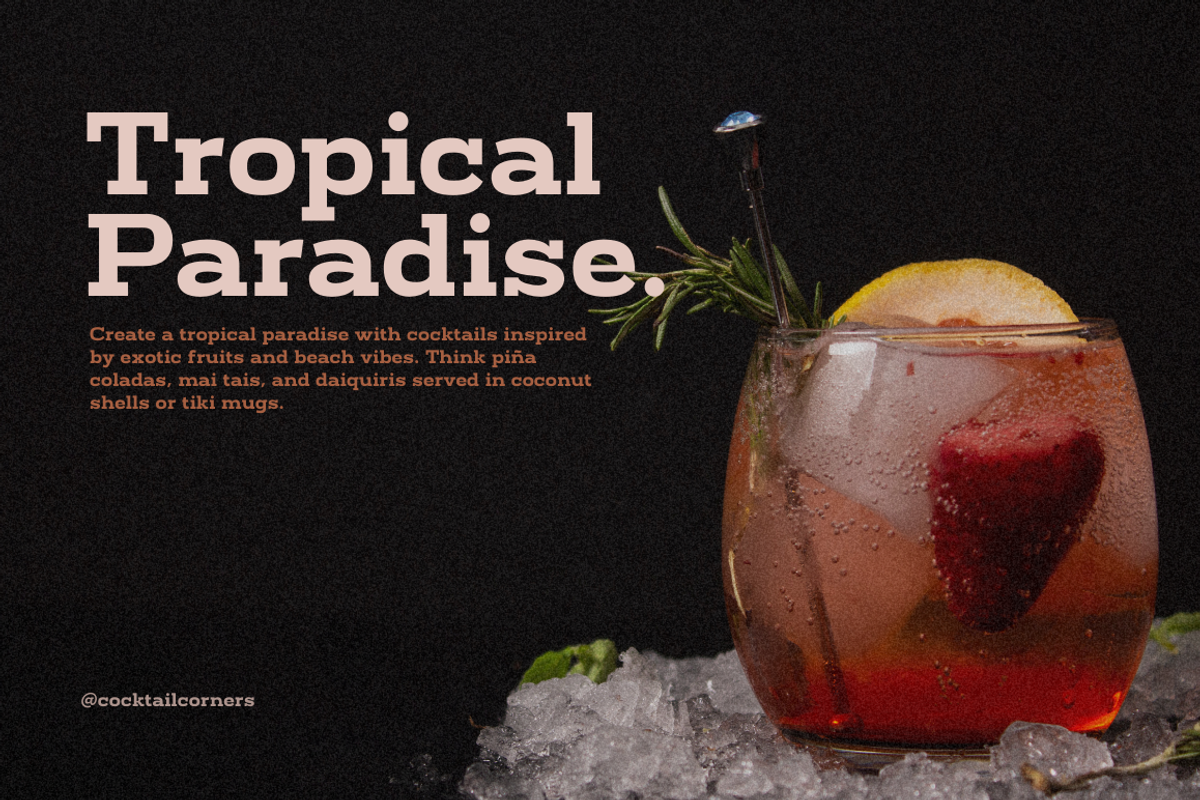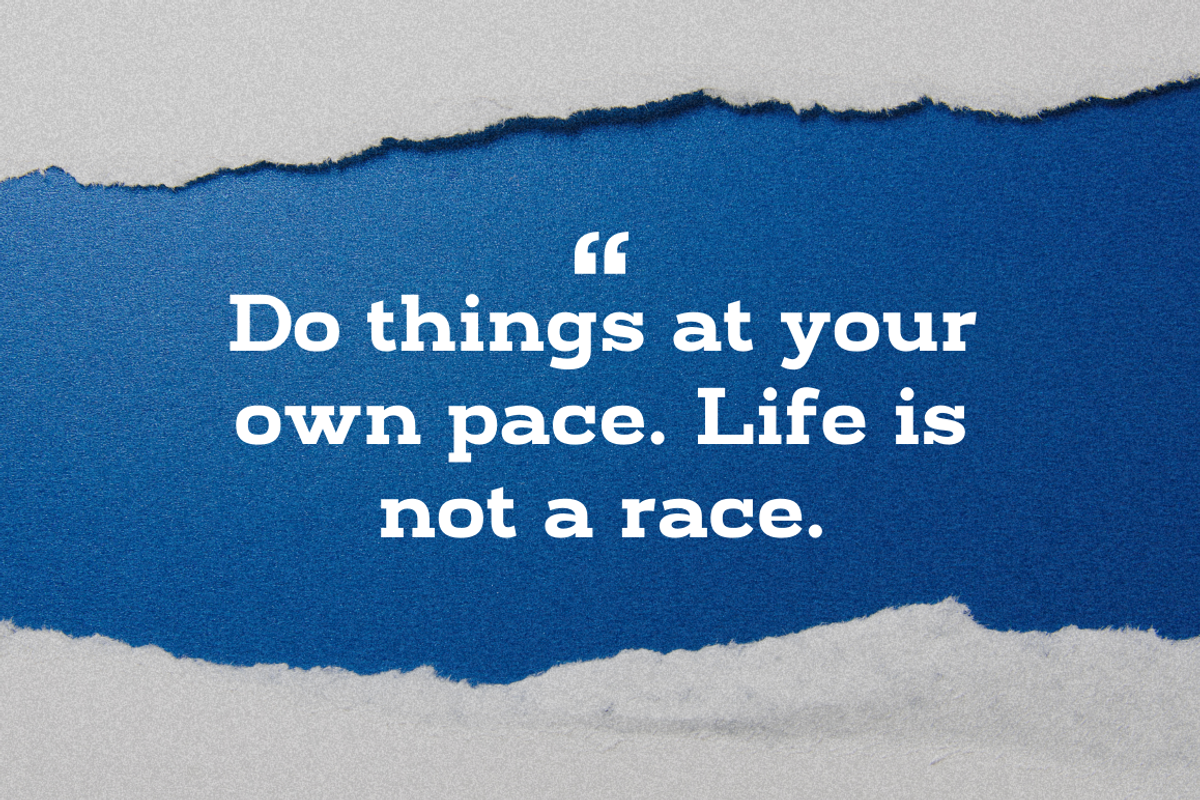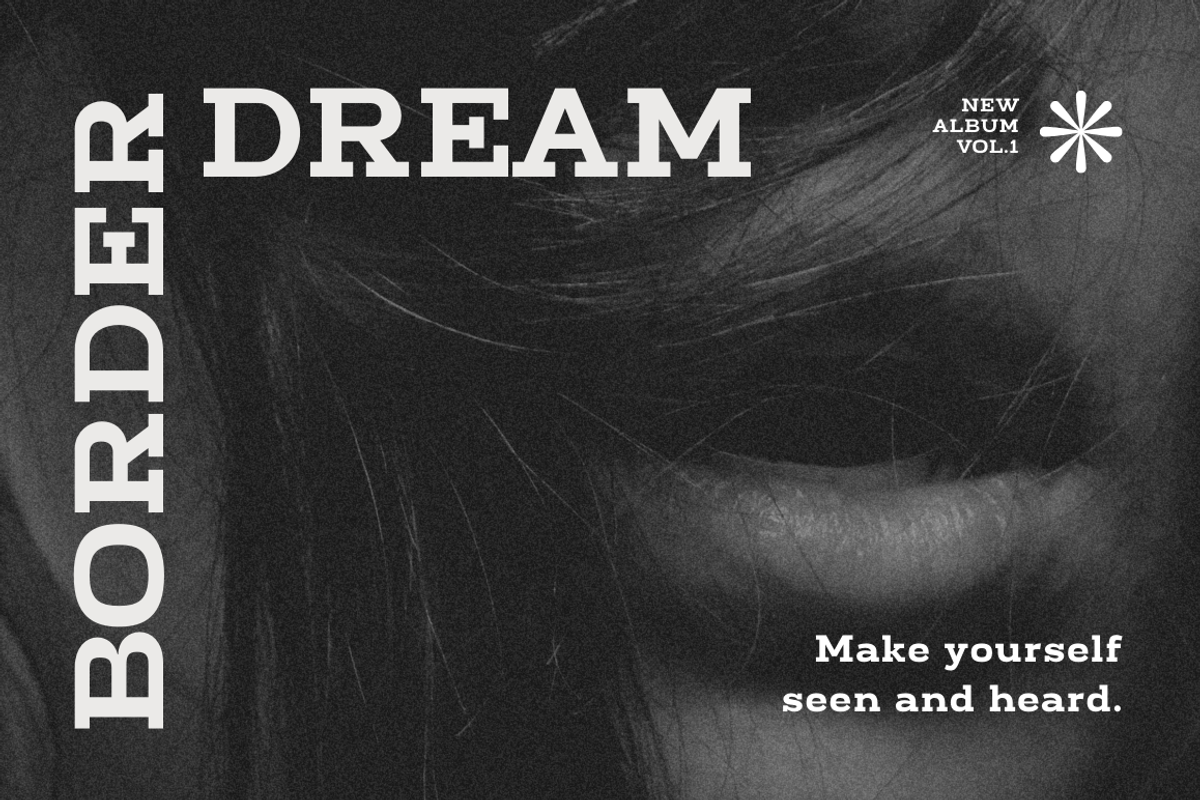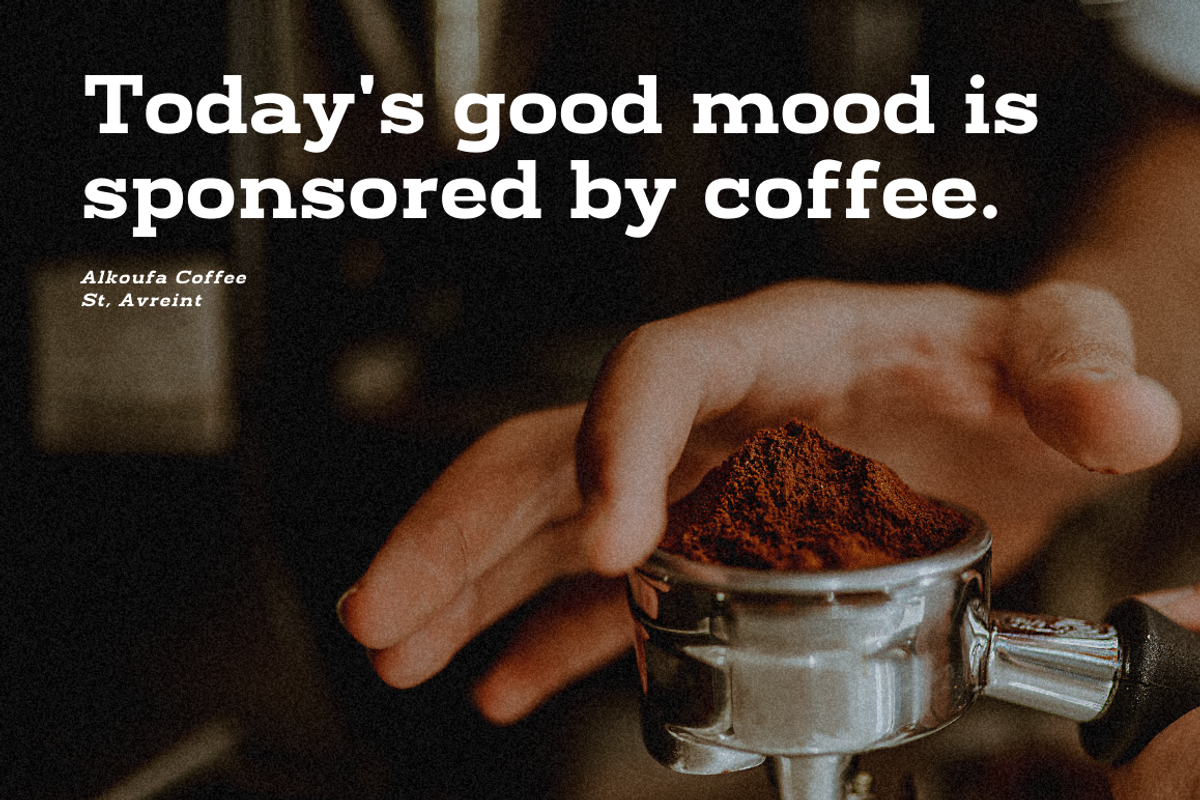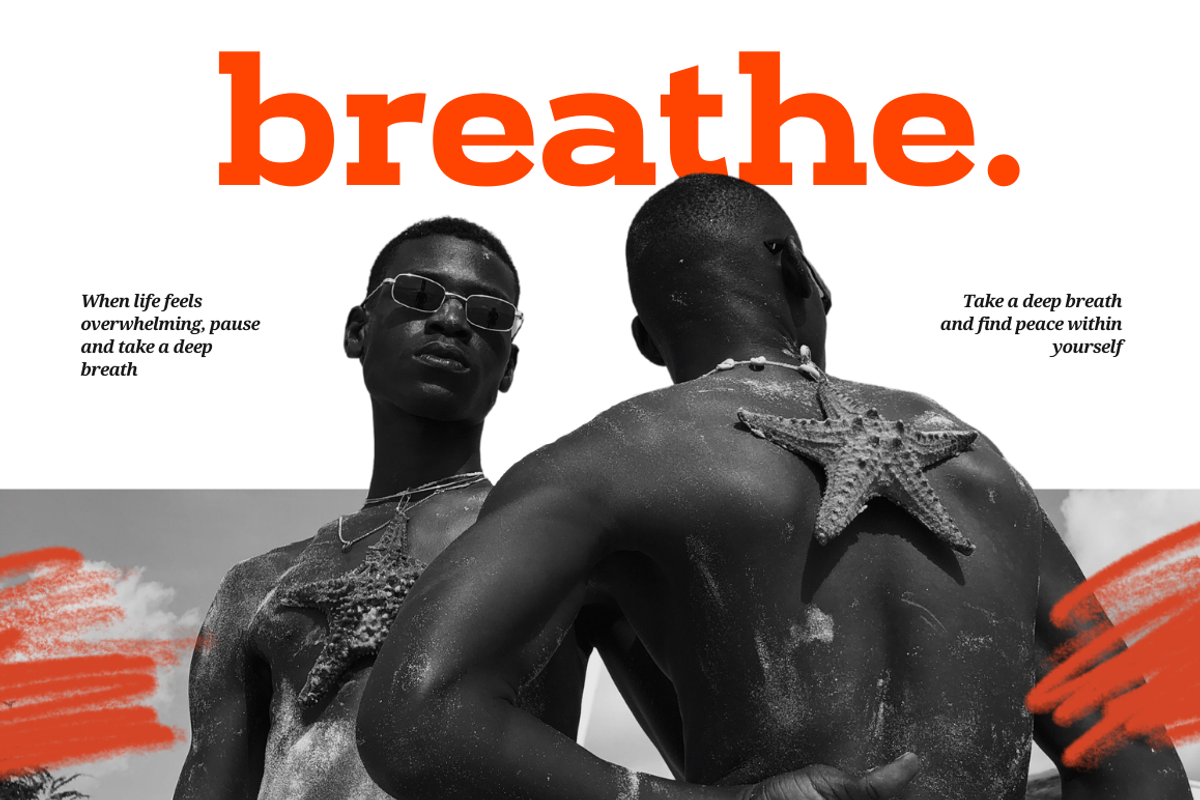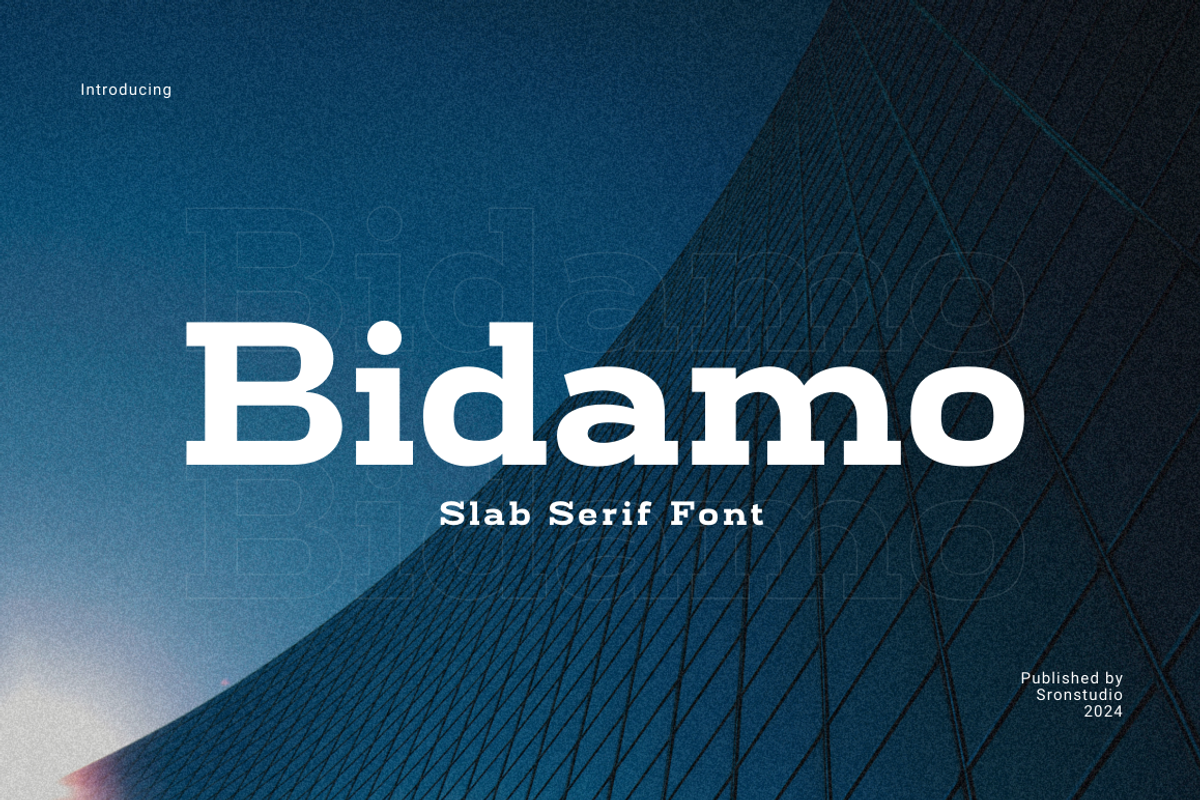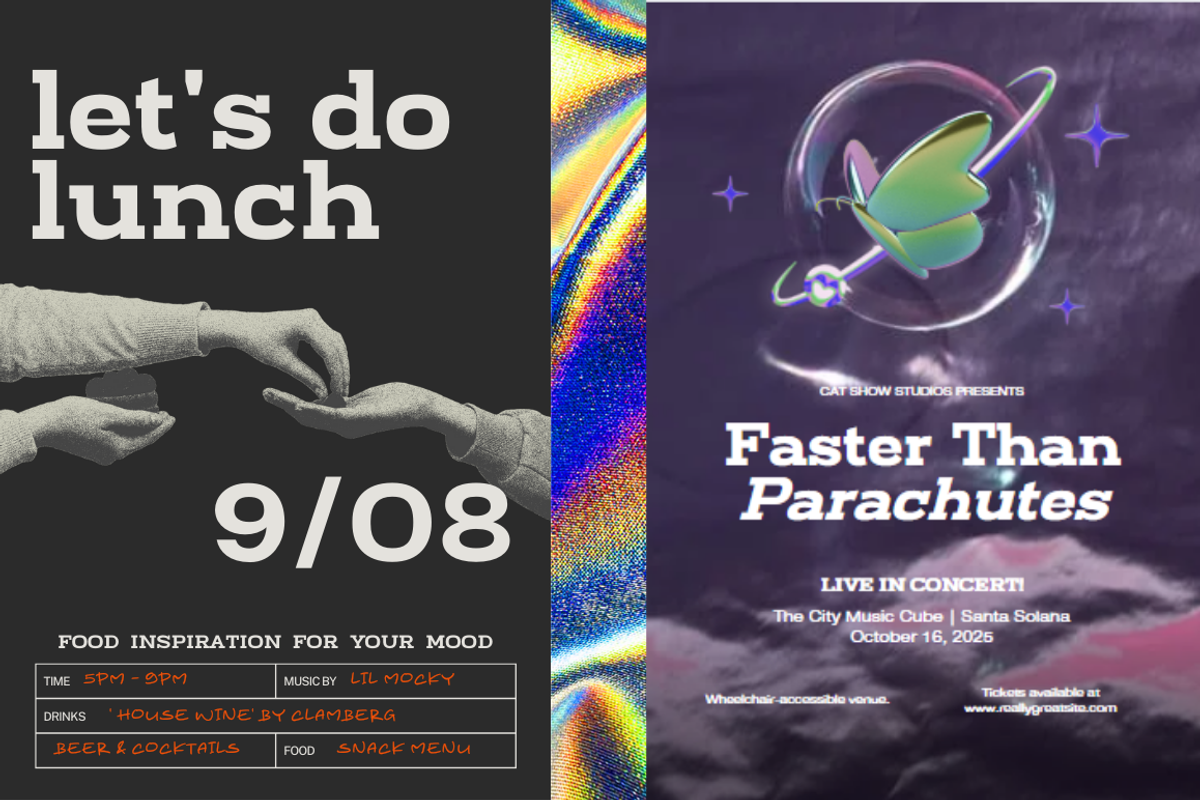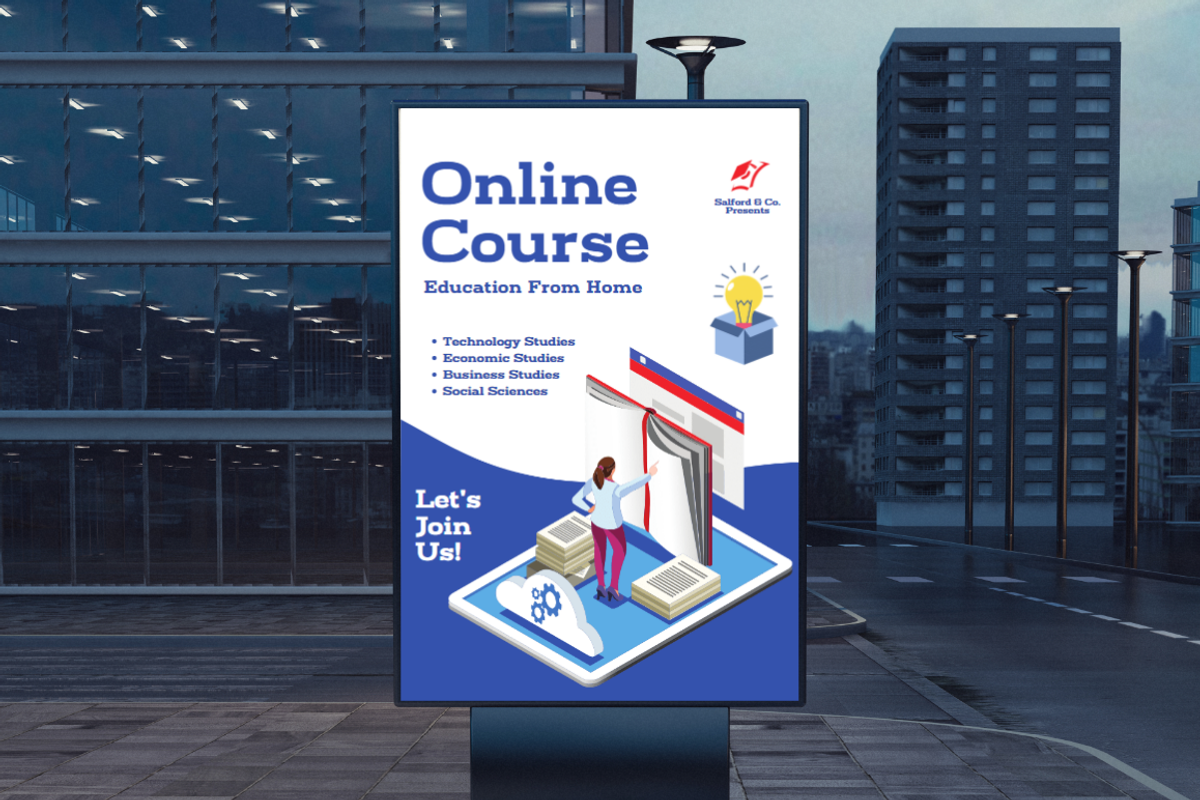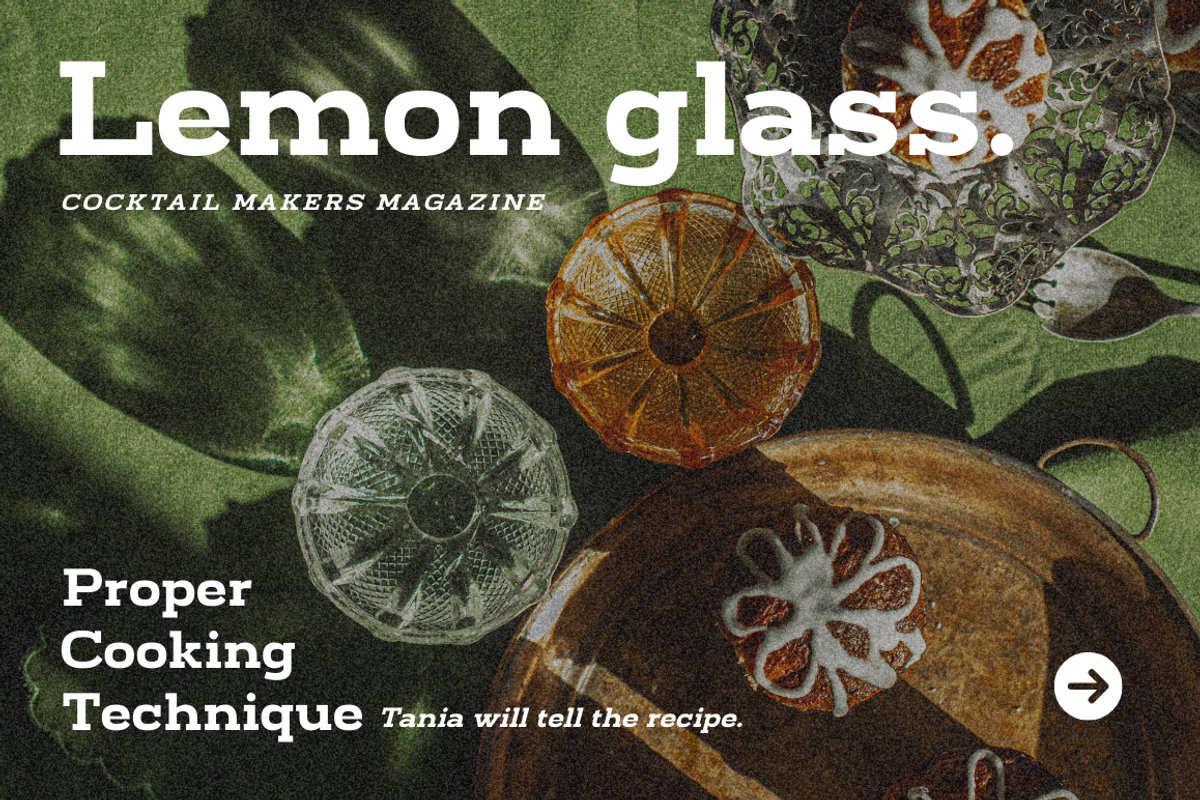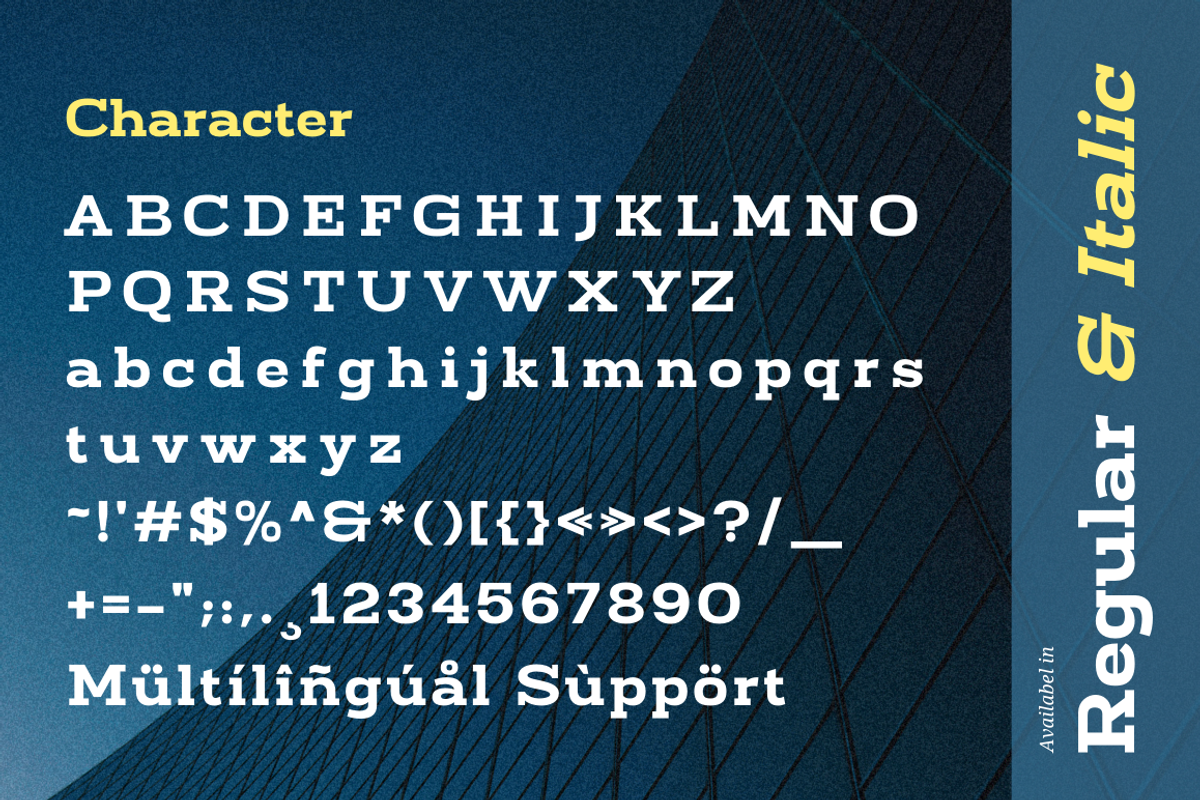
Bidamo - Slab Serif Font
Introducing "Bidamo," a bold modern slab serif font designed to make a powerful statement. With its strong, geometric letterforms and contemporary style, "Bidamo" is perfect for headlines, logos, branding, and posters. This font combines the solidity of slab serifs with a modern twist, offering versatility and impact. Elevate your designs with the robust and striking presence of "Bidamo," ensuring they capture attention and leave a lasting impression.
- Regular & Italic Style